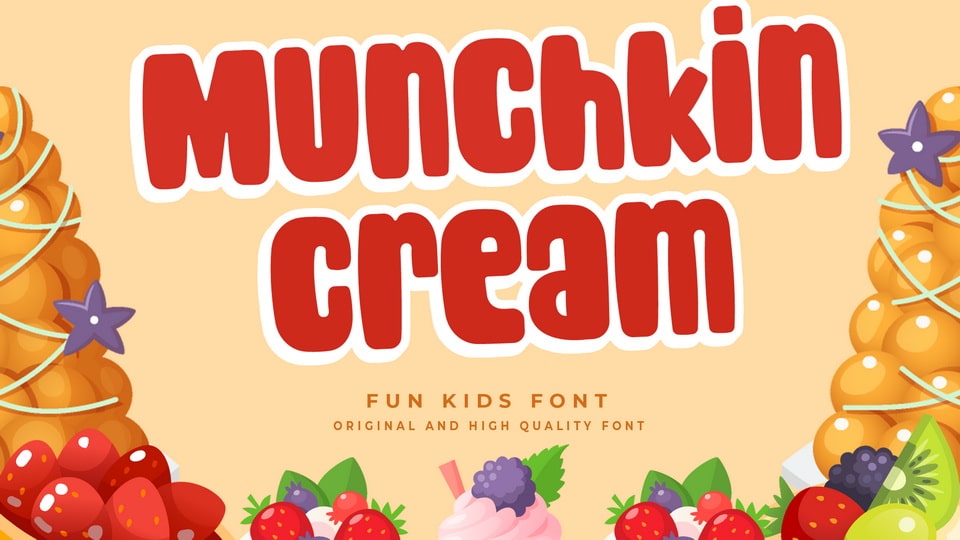
Download Munchkin Cream font, the perfect fun kids typeface for your next project! With its playful and cute design, this cartoon font is sure to delight children and adults alike.